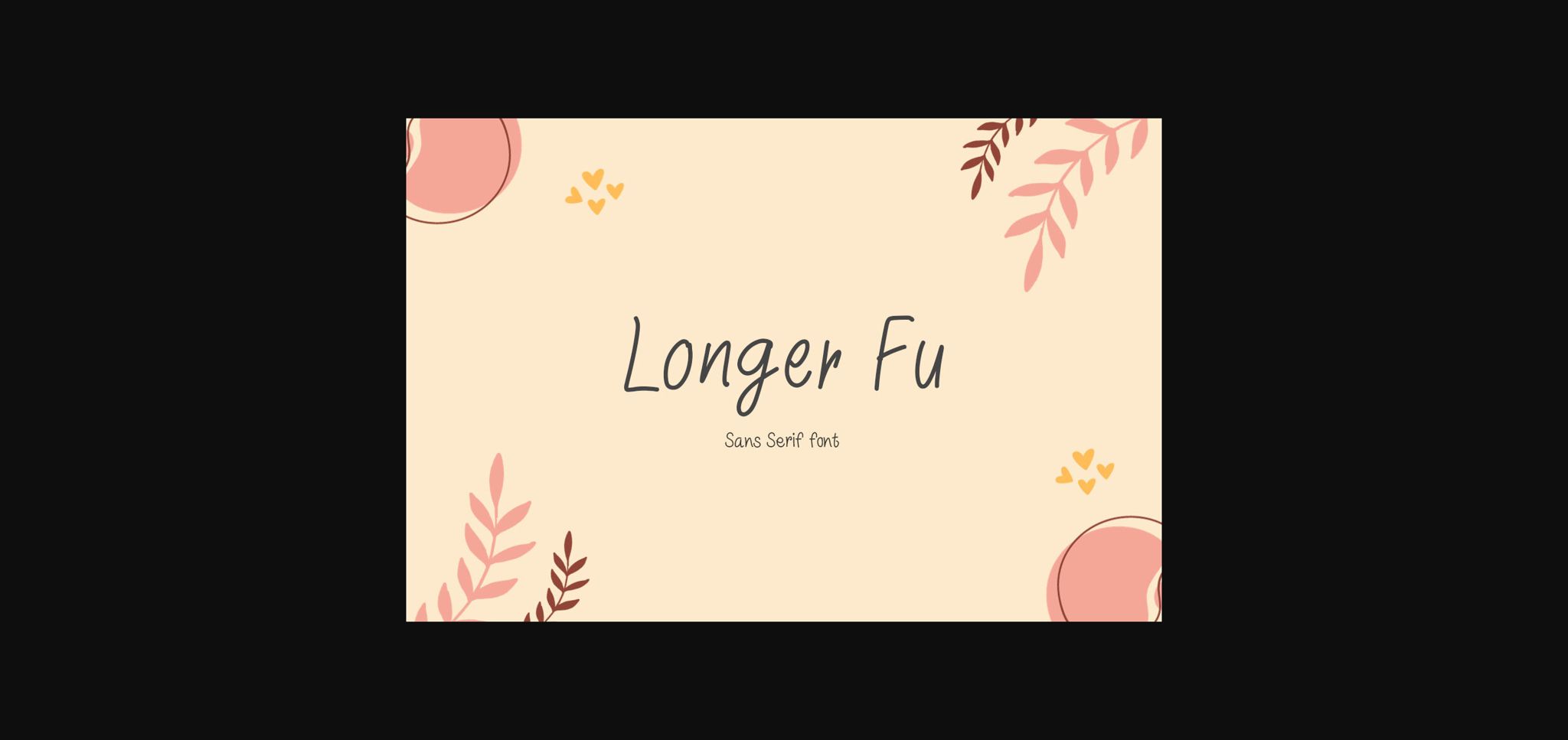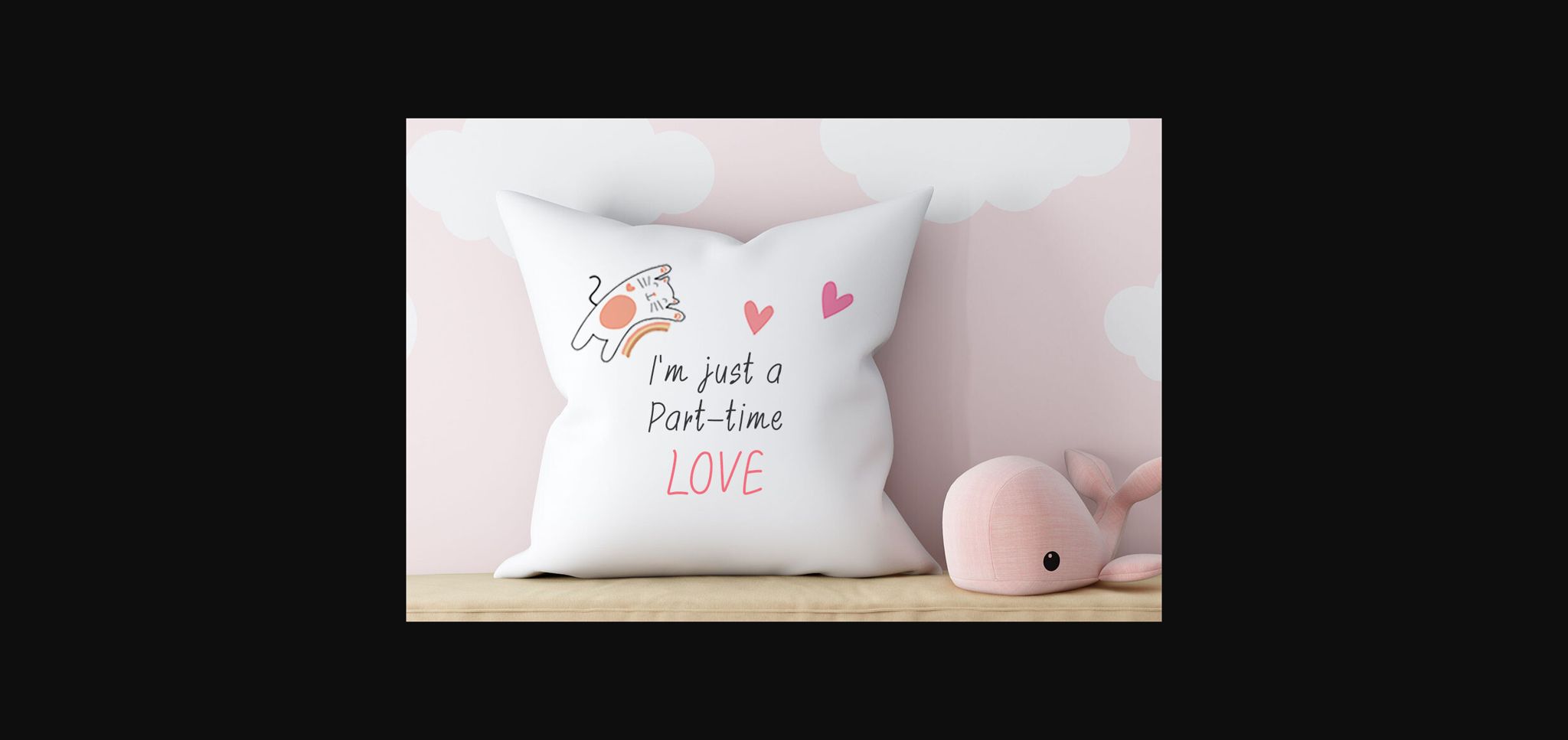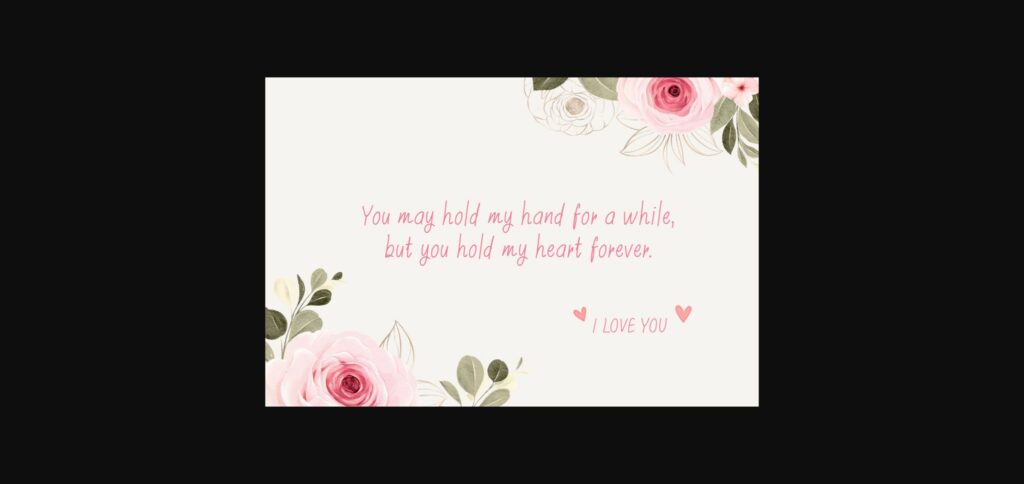
Longer Fu Font
About Longer Fu Font
Longer Fu is a cute, soft and friendly handwritten font. It informal style and casual vibe. It would be awesome to your fun projects or diary planner, on wedding invitations, thank you cards, quotes, greeting cards, logos, posters, blogs, bag, T Shirt, clothing, eye-catching social media posts, and much more!